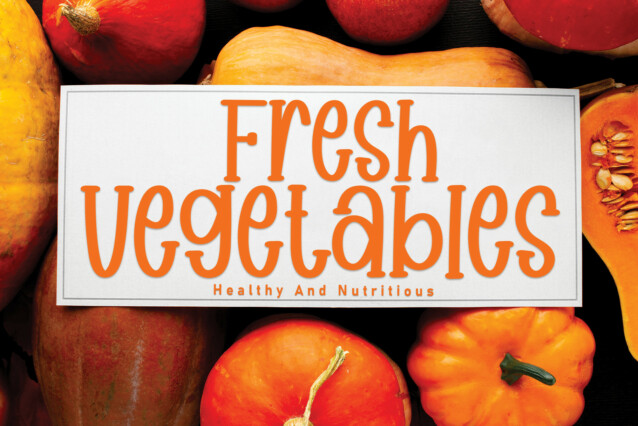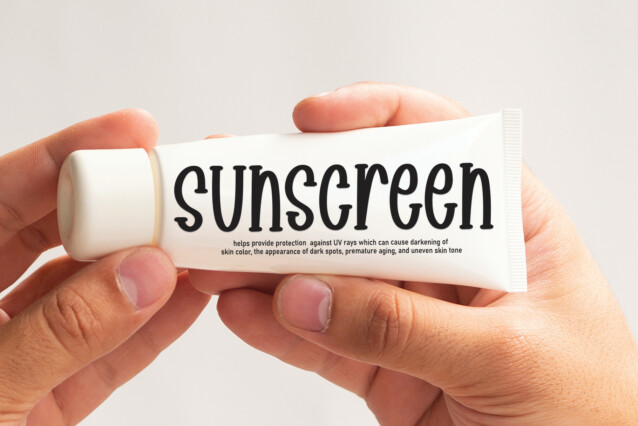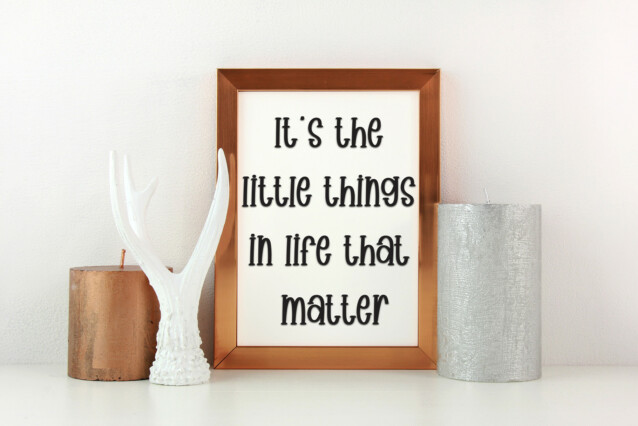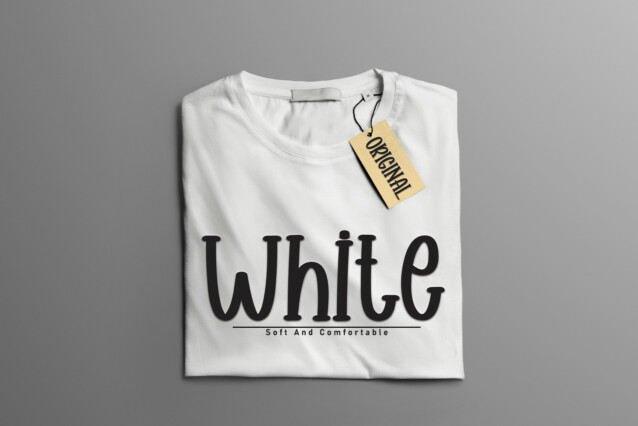
Always Happy Script Font
Always Happy Script Font is a cute handwritten font that comes with ligatures. This font is perfect for t-shirts, posters, packaging, and more. This font is PUA encoded which means you can access all of the amazing glyphs and ligatures with ease!